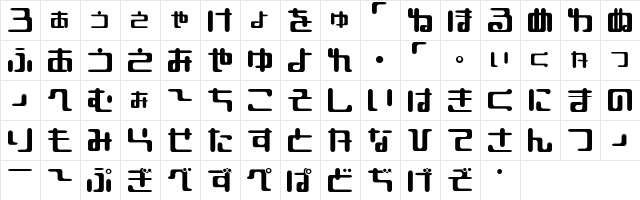
I2Hinano Regular Font Preview
I2Hinano Regular
Design Context for I2Hinano Typeface
I2Hinano takes a measured approach to typography — its balanced proportions and neutral character make it a reliable workhorse for both digital and print work.